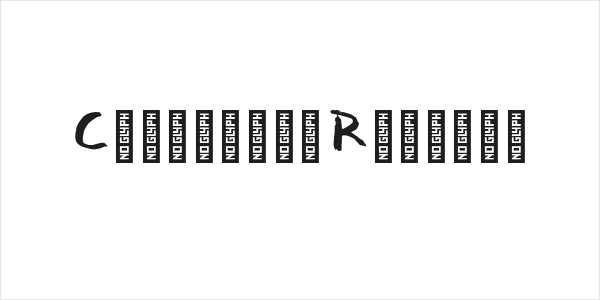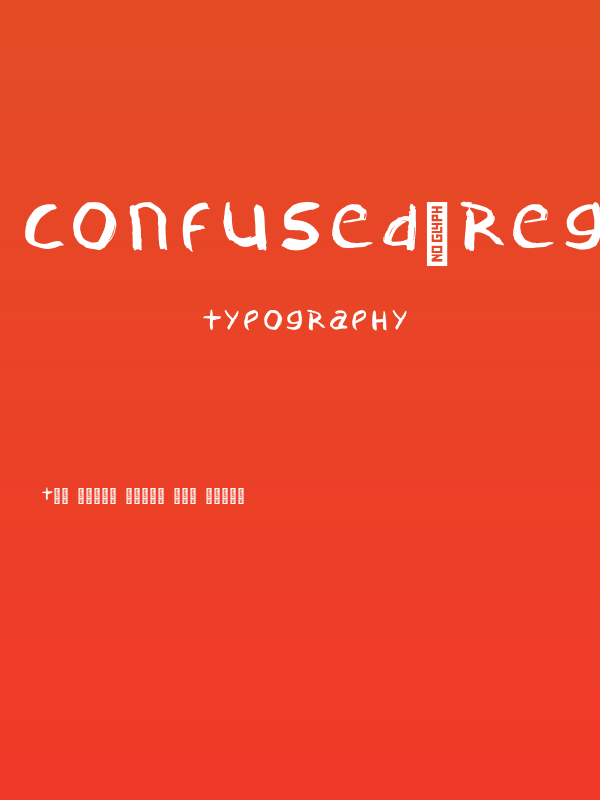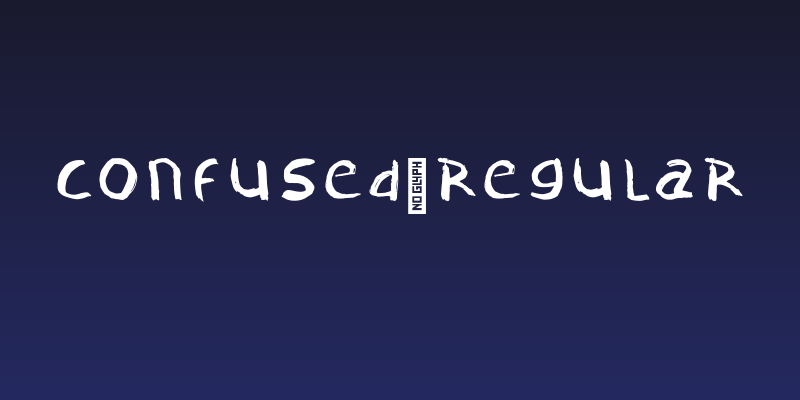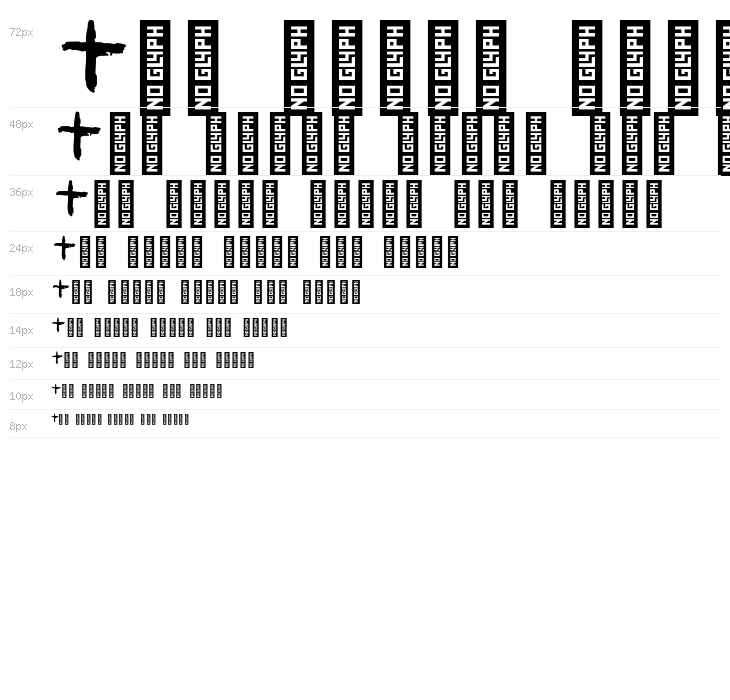
Confused-Regular Font
| Stile generale | Casual, Artistic |
| Caso d'uso | Headlines, Artistic branding, Greeting cards |
| Progetti proposti | Ideal for creative projects such as greeting cards, posters, and artistic branding. |